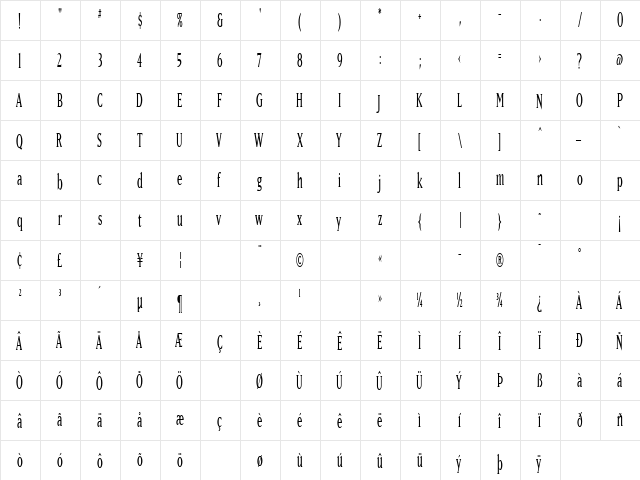
MatrixNarrowLining Regular Font Preview
MatrixNarrowLining Regular
Design Context for MatrixNarrowLining Typeface
MatrixNarrowLining is a composed and adaptable typeface that performs quietly and consistently across a wide range of design contexts. Its narrow stance lets it pack a punch even in space-constrained designs.